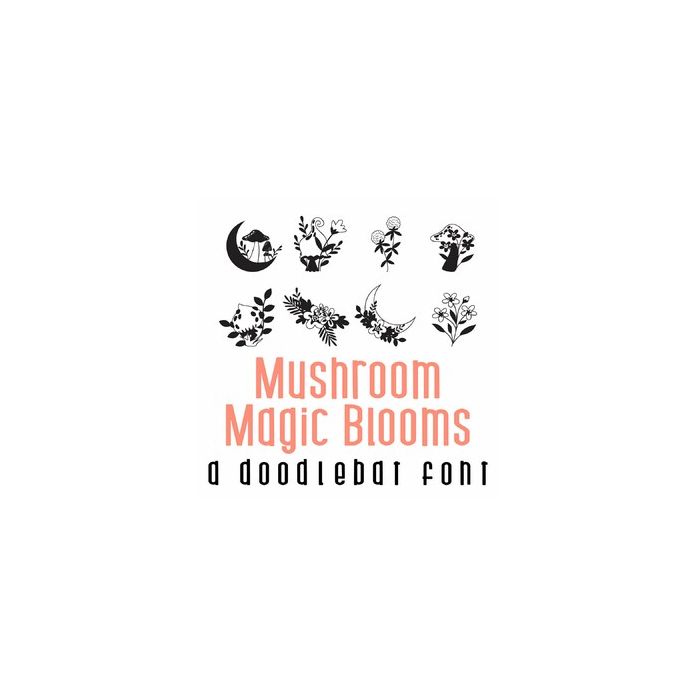
This adorable doodlebat font features 26 beautiful florals and mushrooms. Perfect for Spring, crafts, gifts, decor, planner stickers, scrapbook pages and more!